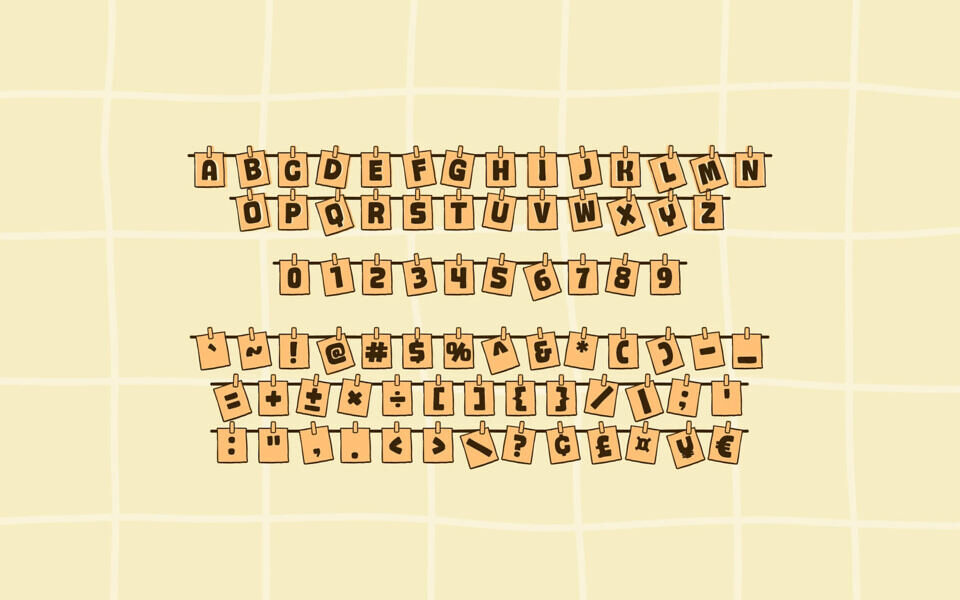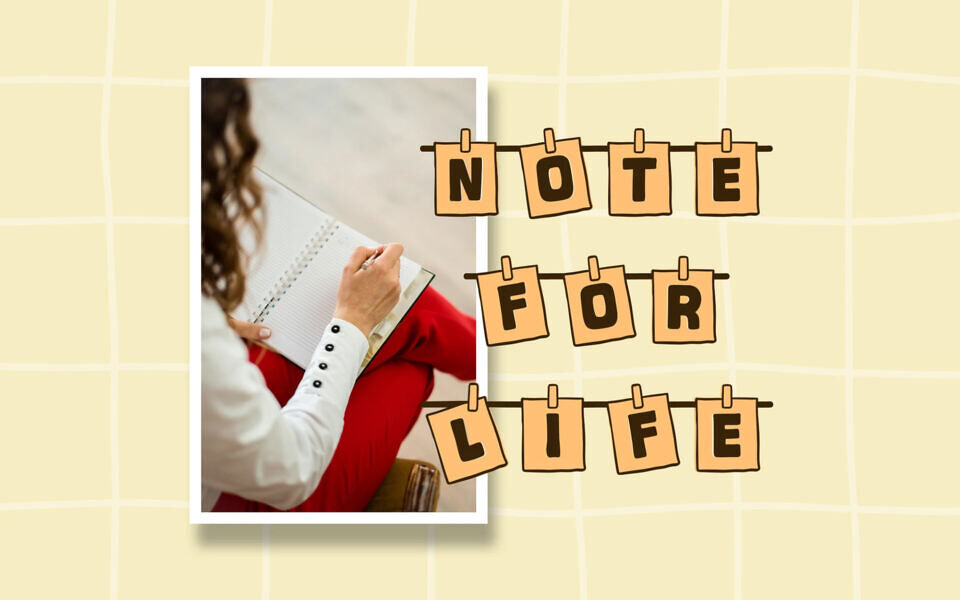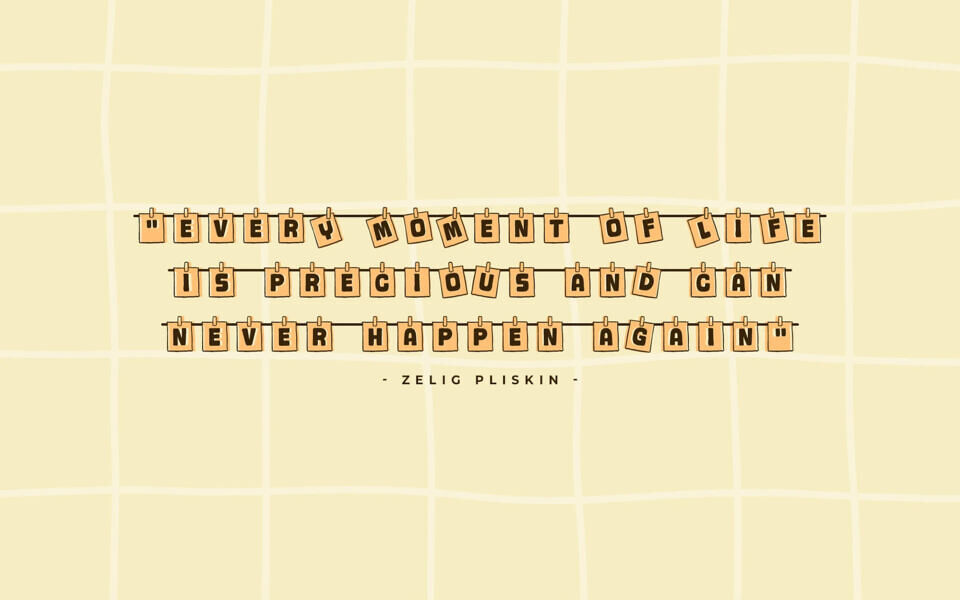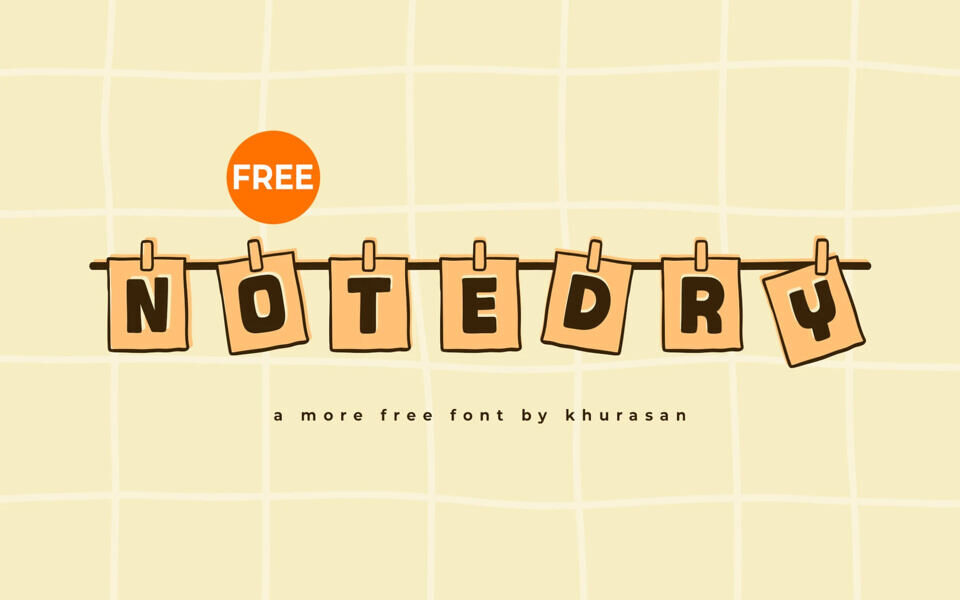
Notedry Font
The Notedry Font is a charming, handcrafted typeface featuring playful, lettered cards strung on a line with clothespins, evoking a whimsical, note-taking vibe. Available in uppercase letters, numbers, and a variety of symbols. Ideal for creative projects, this font adds a personal, handwritten touch to invitations, posters, and inspirational quotes.